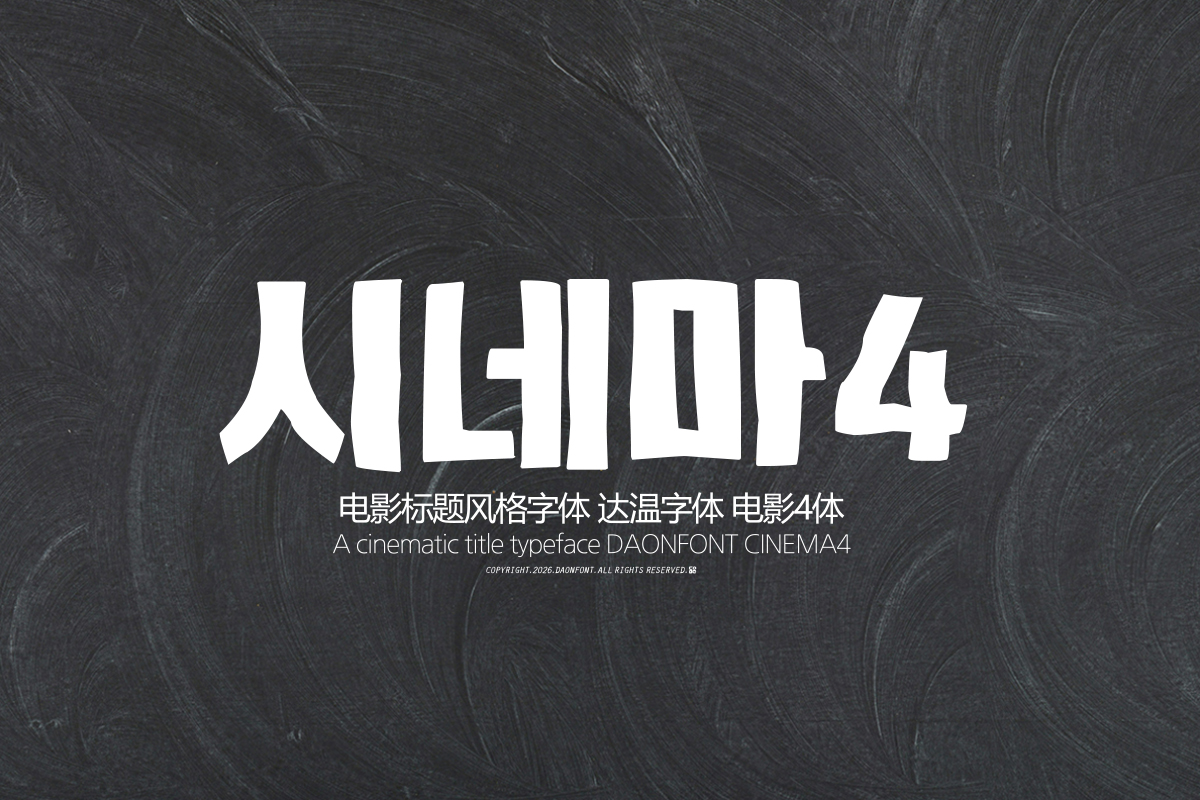
DAON CINEMA4
'CINEMA4' is a Korean display font designed to capture a comical sensibility and a lighthearted atmosphere, making it well-suited for fun title designs or copy. It was designed to create headlines that instantly grab attention, much like movie posters or video opening titles, and allows even short phrases to create an impressive scene, much like a single frame on screen.